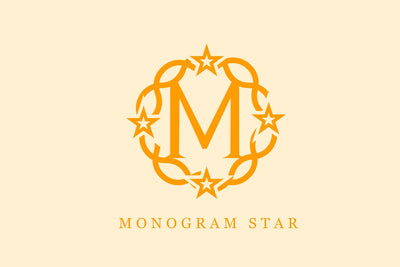
Monogram Star
Monogram Star is a dainty and unique decorative font. Add this romantic and lovely looking font to each of your love letters, wedding invitations or favorite design ideas, and you will be astounded by the outcome.